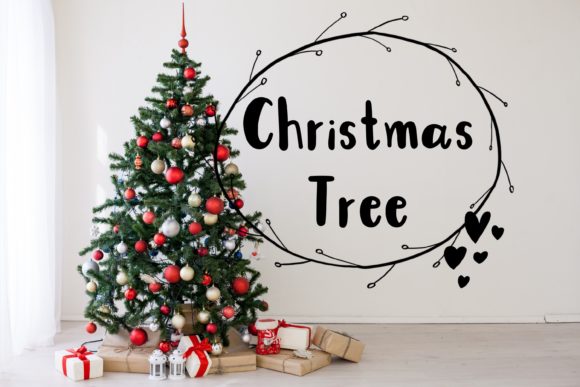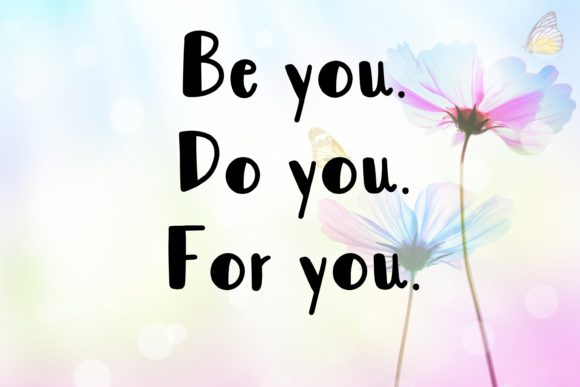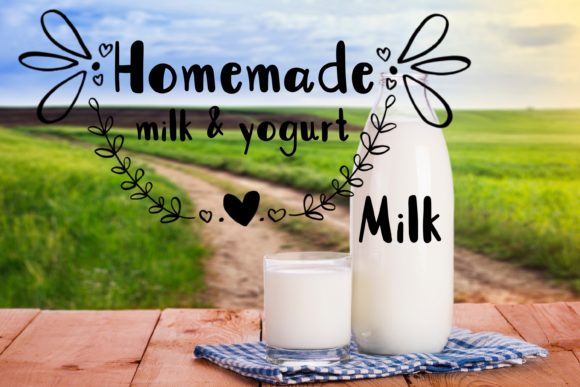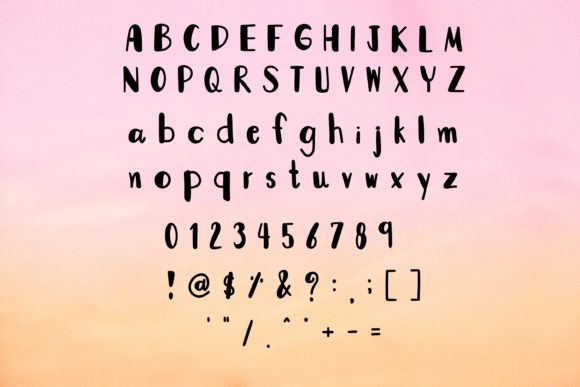
Pastel Unicorn Font
About Pastel Unicorn Font
Pastel Unicorn is a cute and simple lettered handwritten font that can be used for all chalkboard quotes or teaching material! Its authentic look will add a personal and realistic feel to your designs.